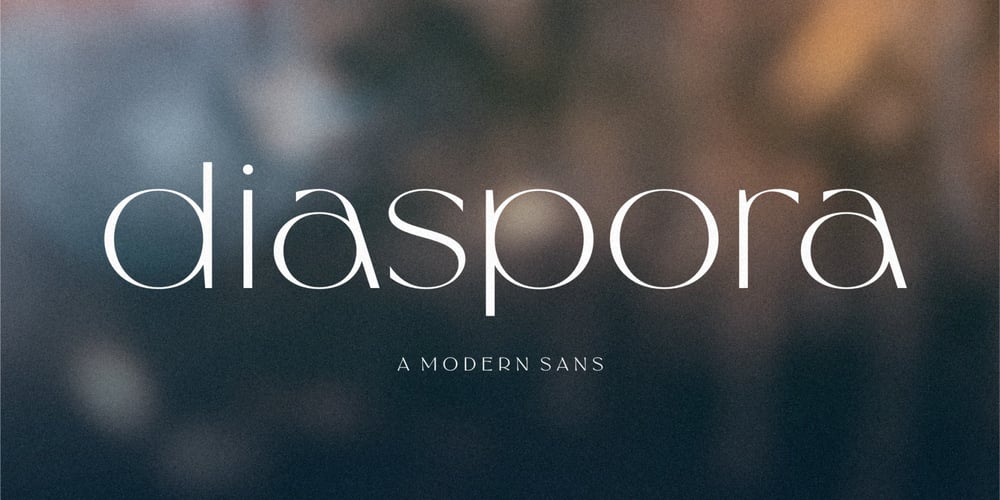
Diaspora Font Family was designed by Annas Alam Yahya and published by Letteralle. Diaspora contains 1 styles and family package options. Diaspora is fancy modern sans serif font. Designed to give the impression of elegance and luxury. Contains uppercase & lowercase characters, all punctuation & numerals.Diaspora is absolutely perfect for editorial projects, Logo design, Wedding, Clothing Branding, product packaging, magazine headers, or simply as a stylish text overlay to any background image.